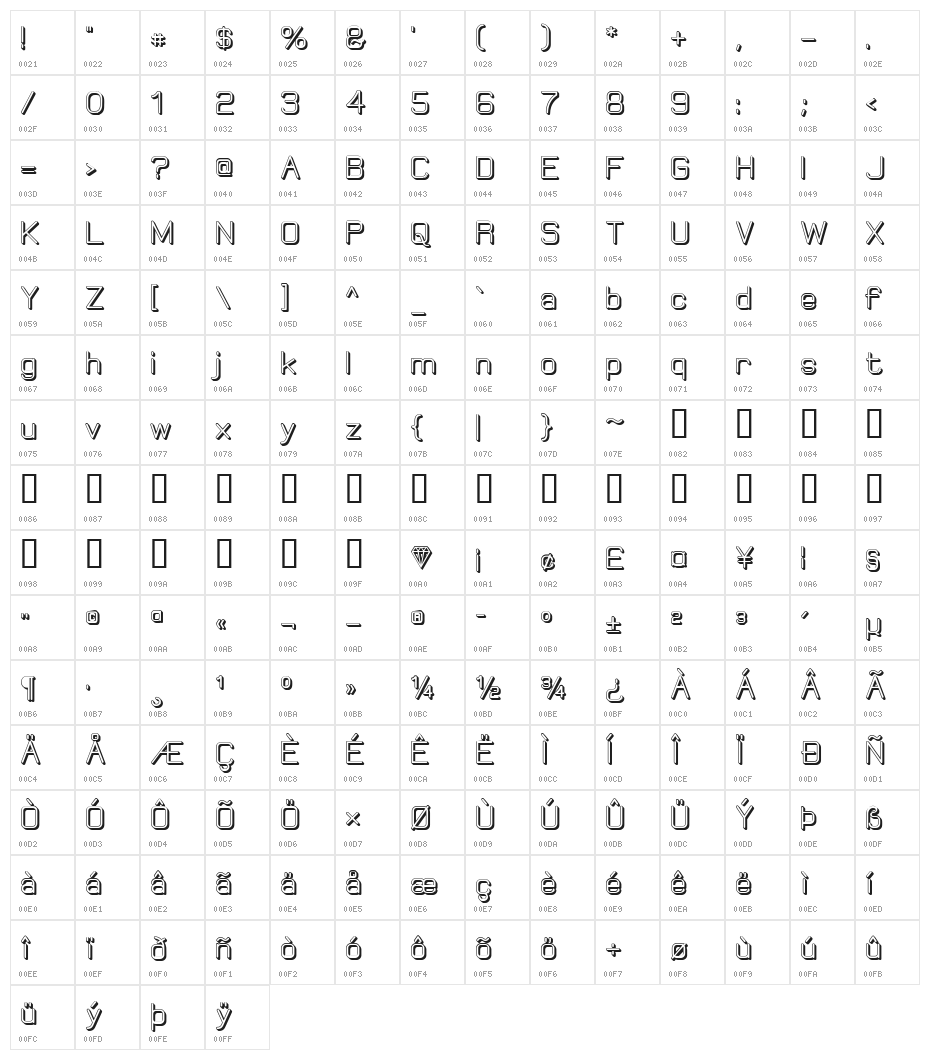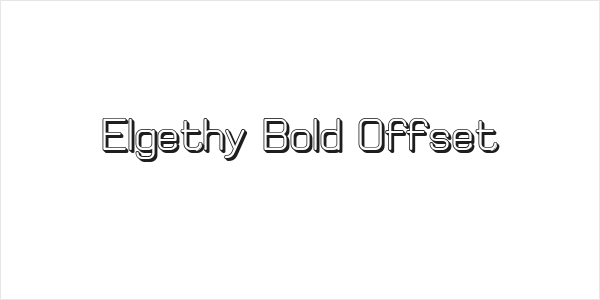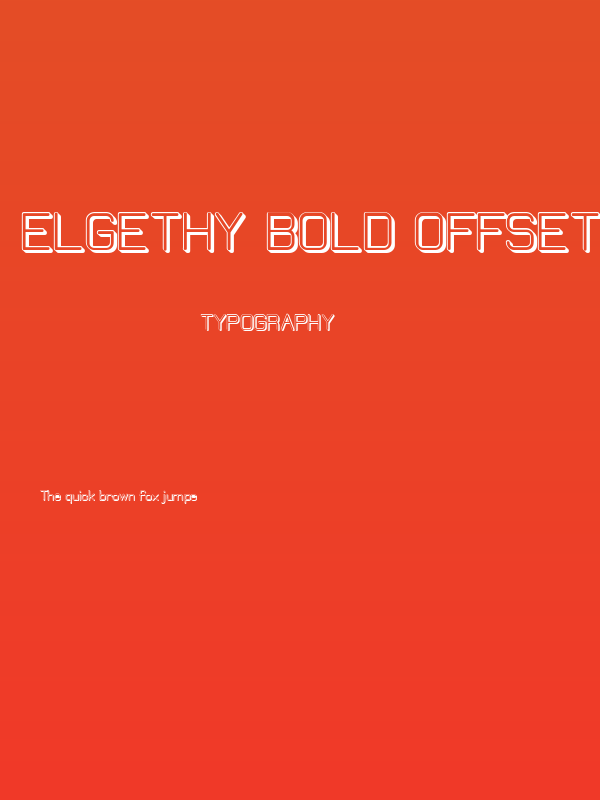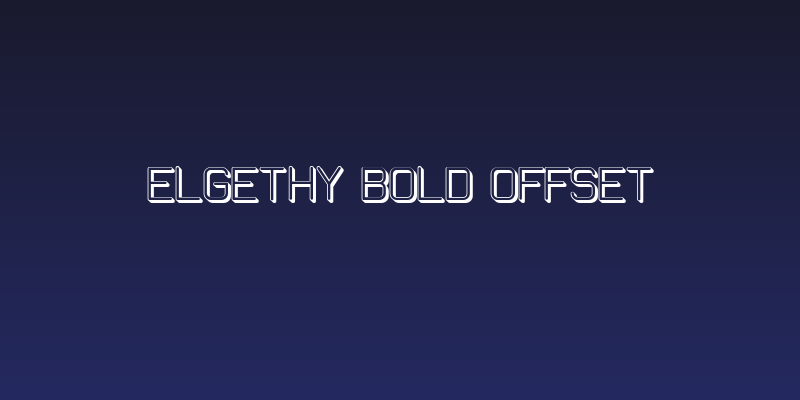
Elgethy Bold Offset Font
Elgethy Bold Offset Description
This font features a bold, geometric style with a distinctive offset outline that gives it a three-dimensional appearance. The uppercase and lowercase letters maintain a consistent width, creating a harmonious and balanced look. The numbers and special characters follow the same design principles, ensuring uniformity across all glyphs. The font's clean lines and modern aesthetic make it suitable for a variety of design applications. Its unique offset outline adds depth and interest, making it stand out in headlines and logos. The overall style is contemporary, with a touch of playfulness due to the outlined effect.